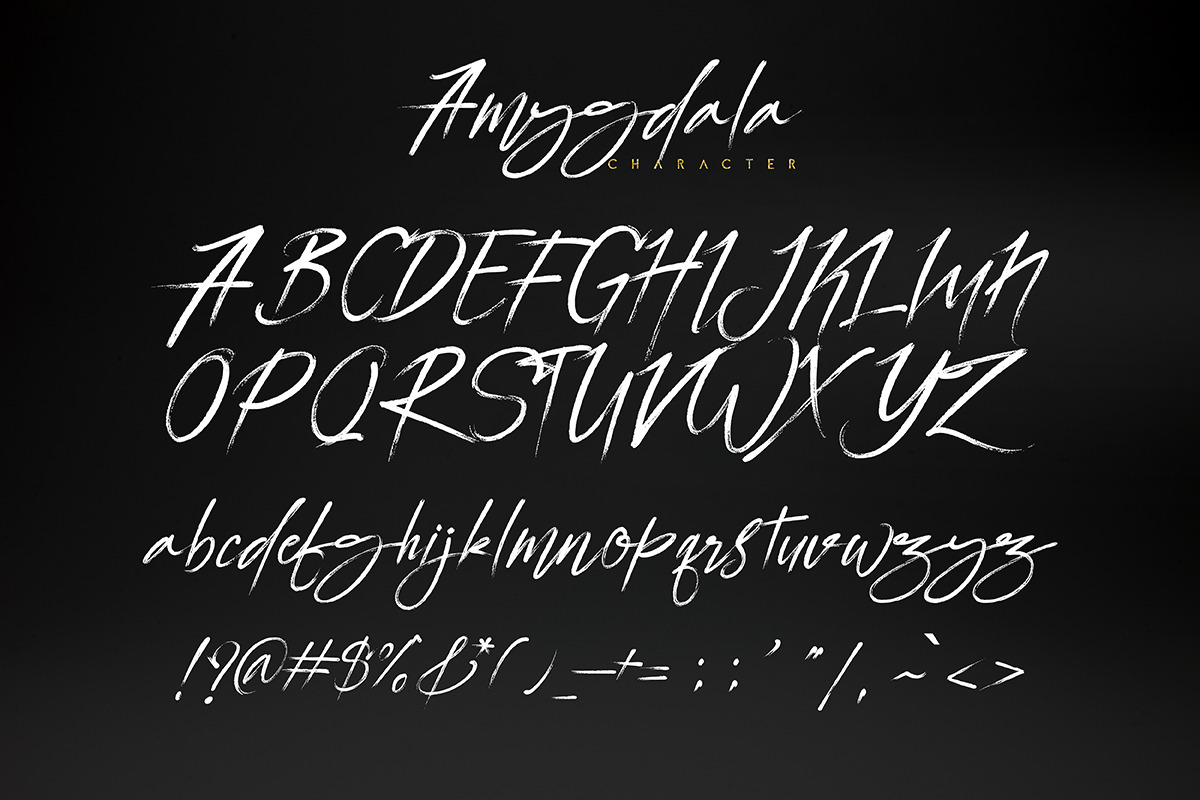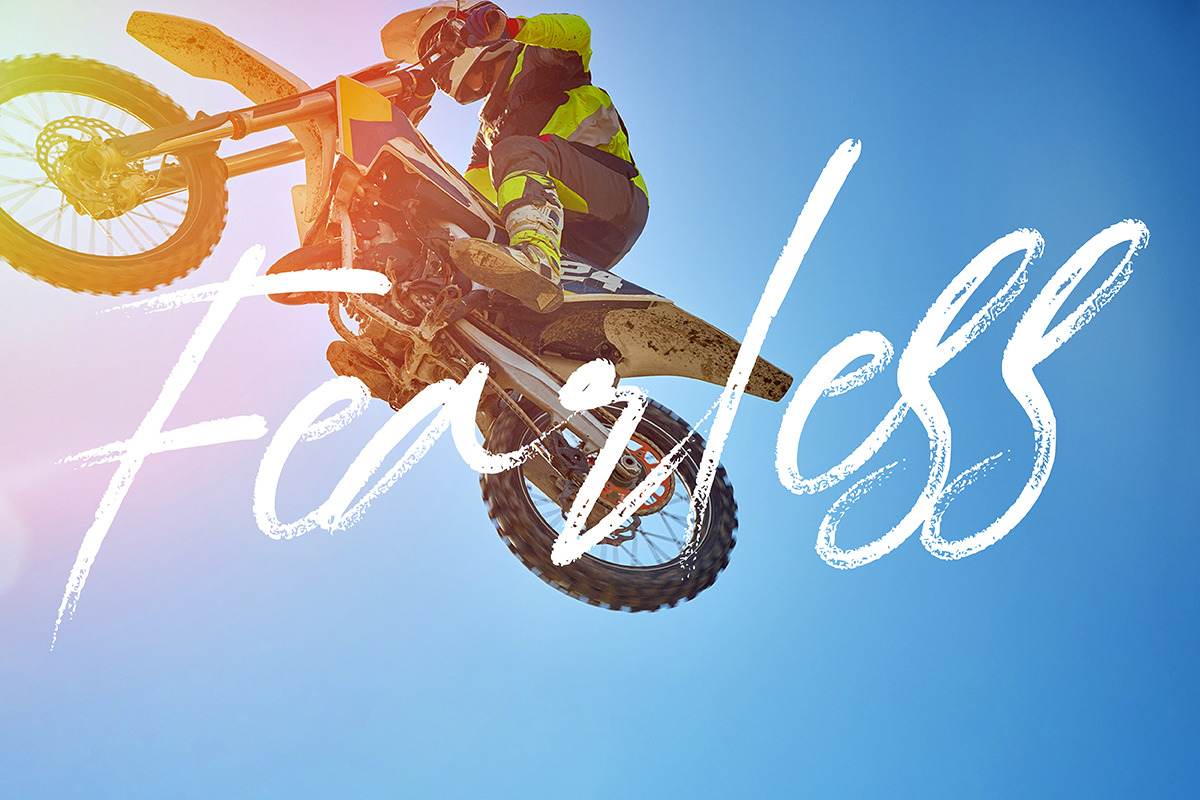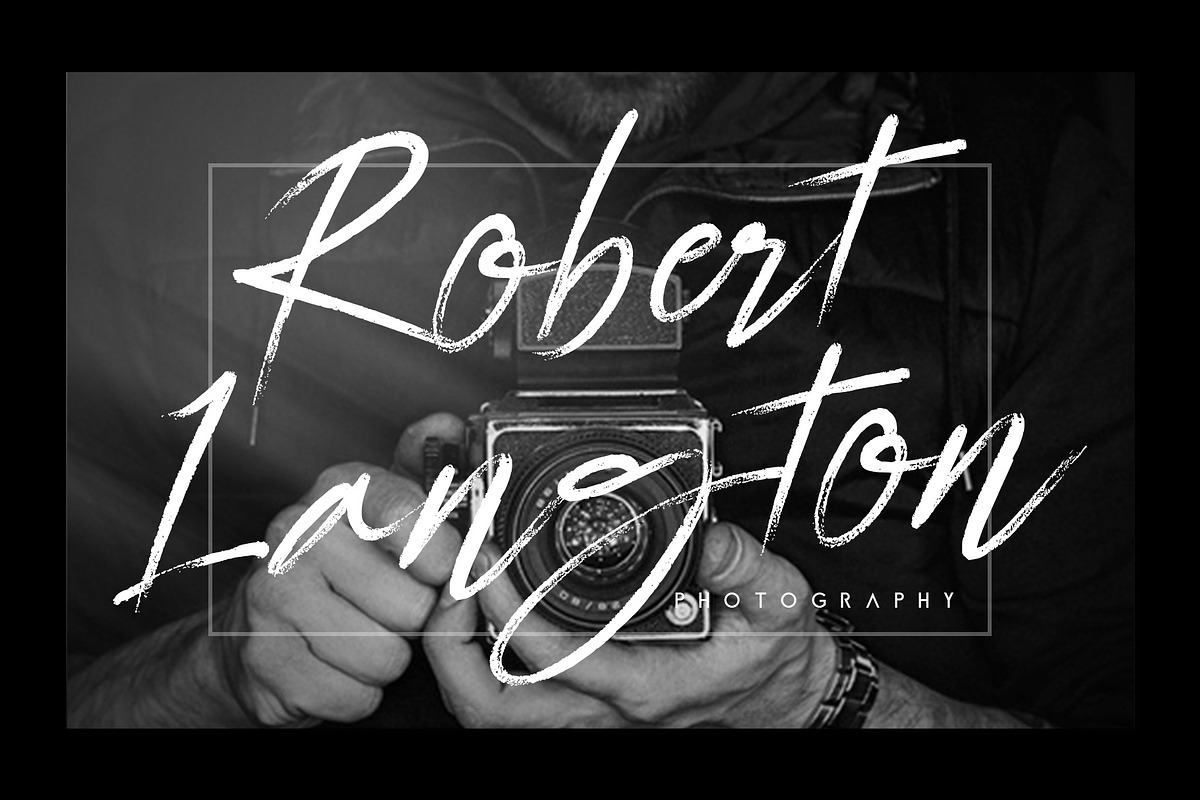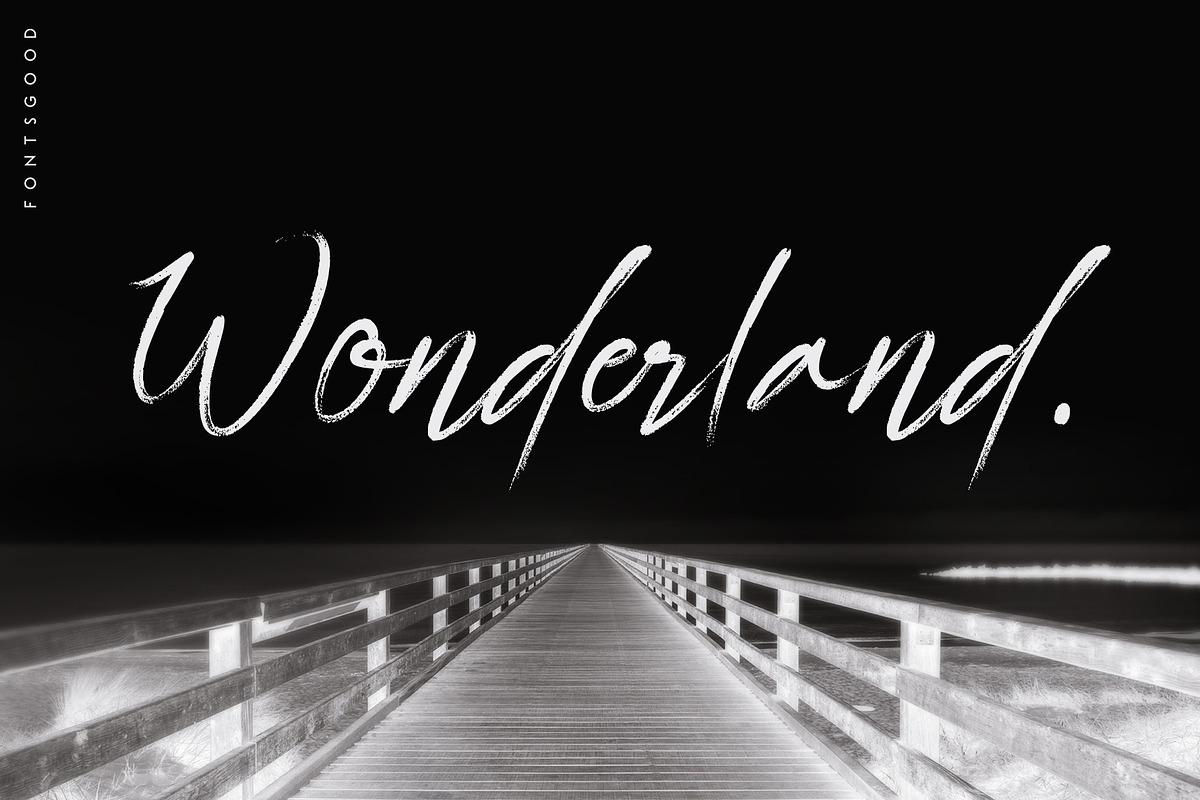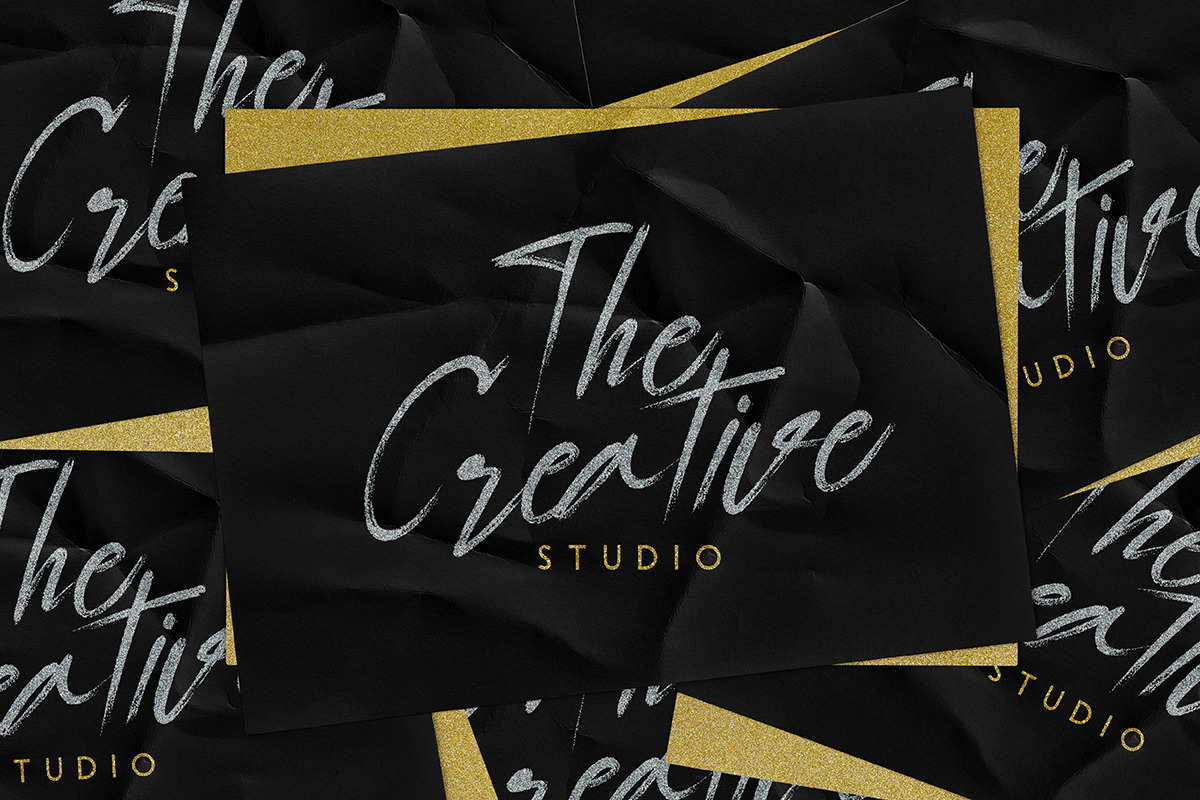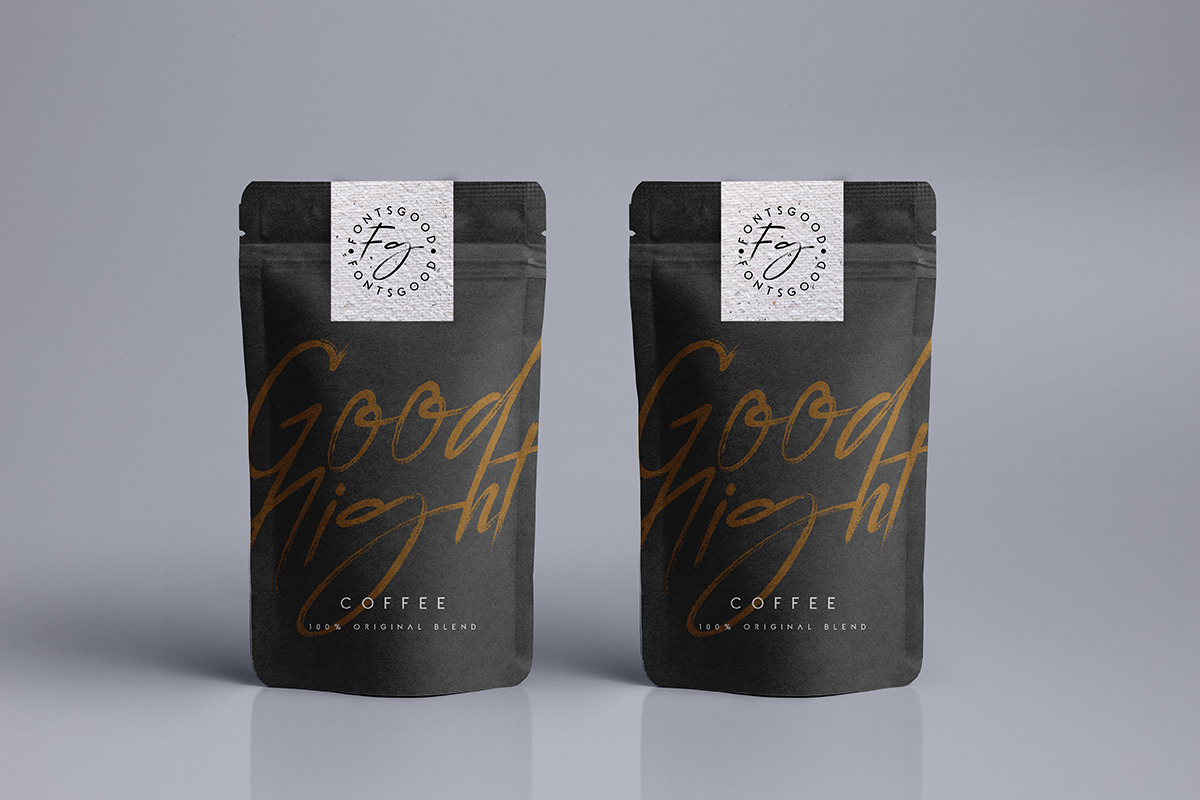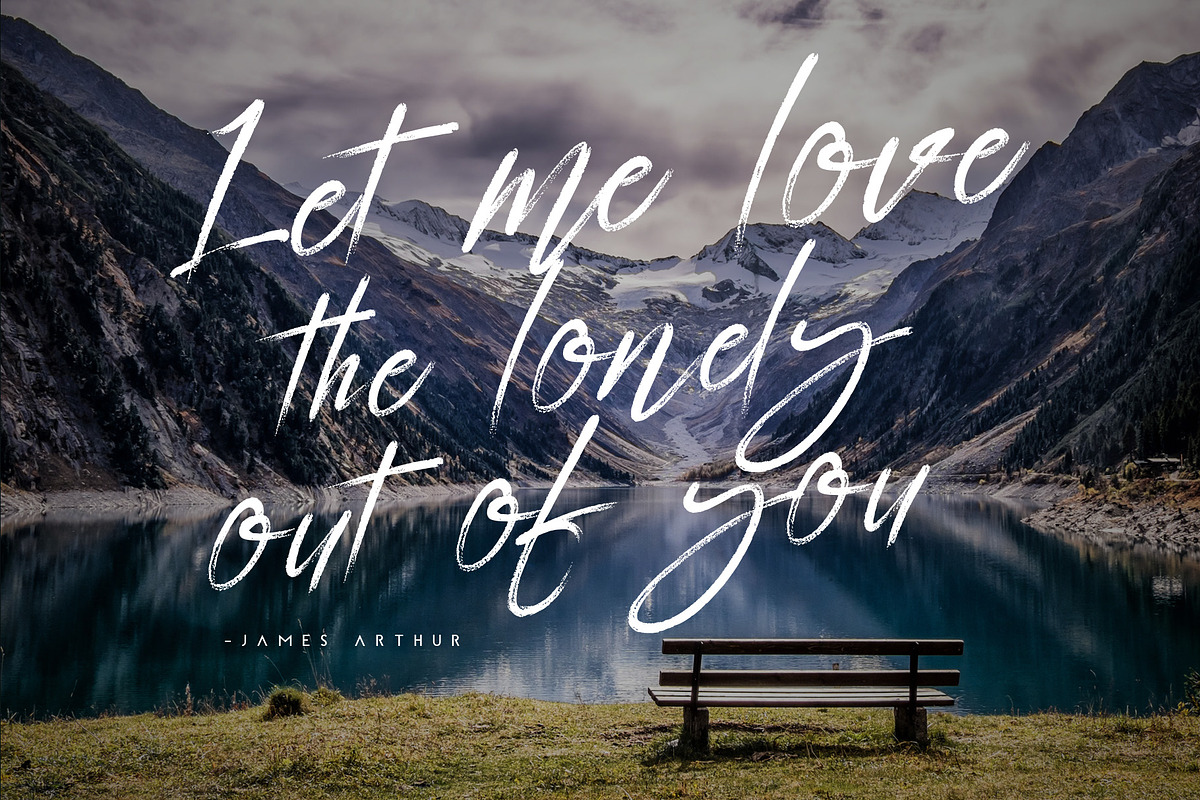
Amygdala
Introducing the elegant hand drawn Calligraphy Font Amygdala! For those of you who are needing a touch of elegance and hand made vibes for your designs, this font was created for you!